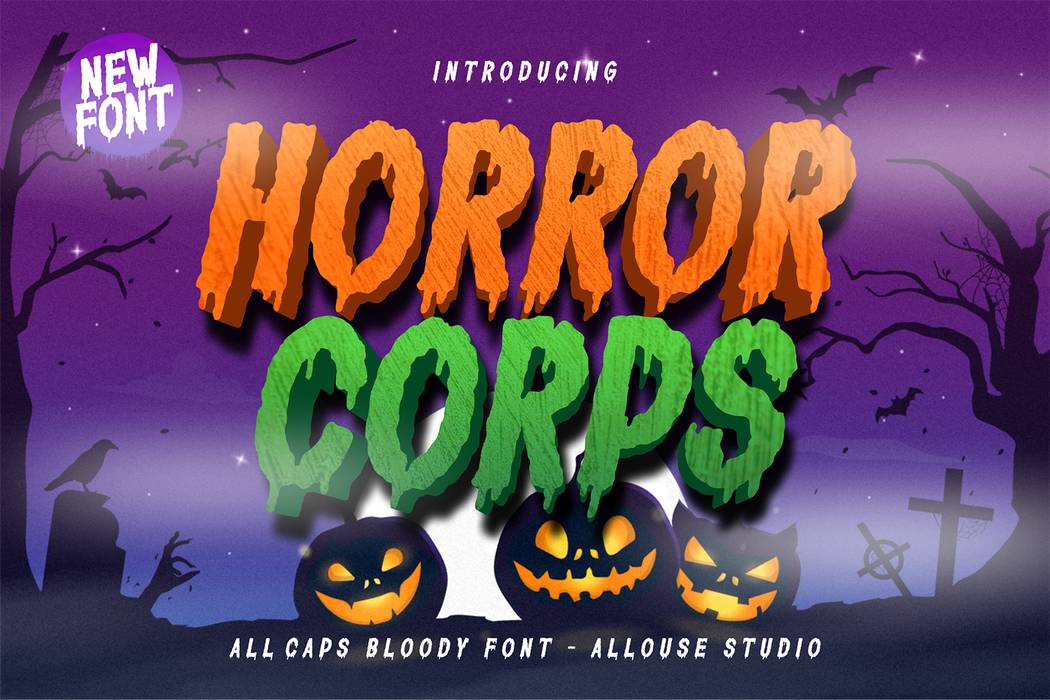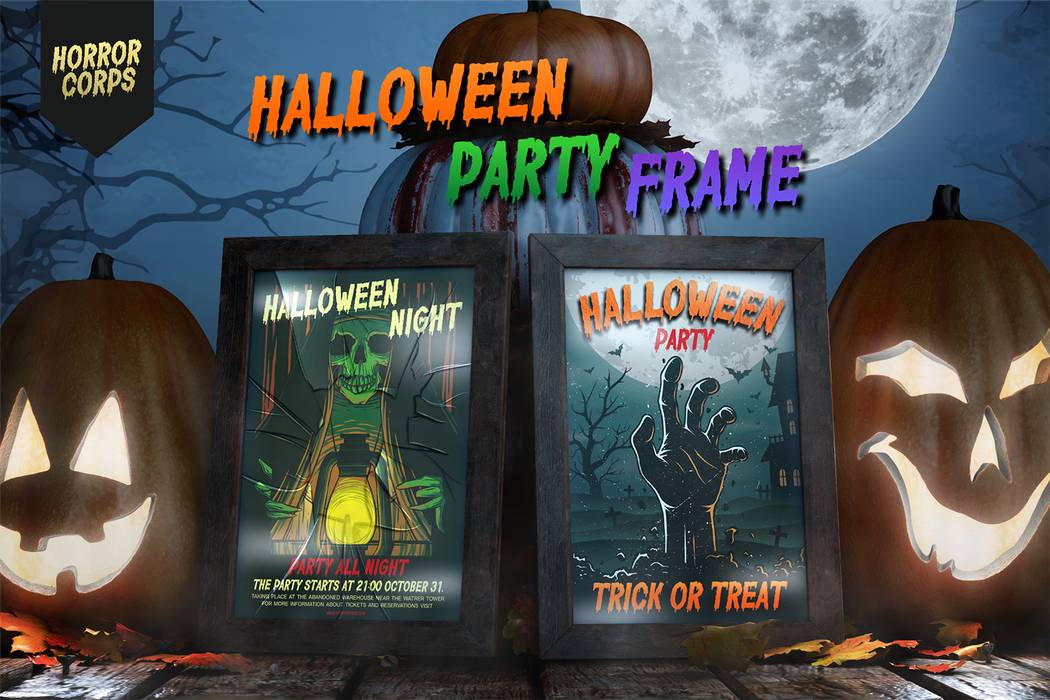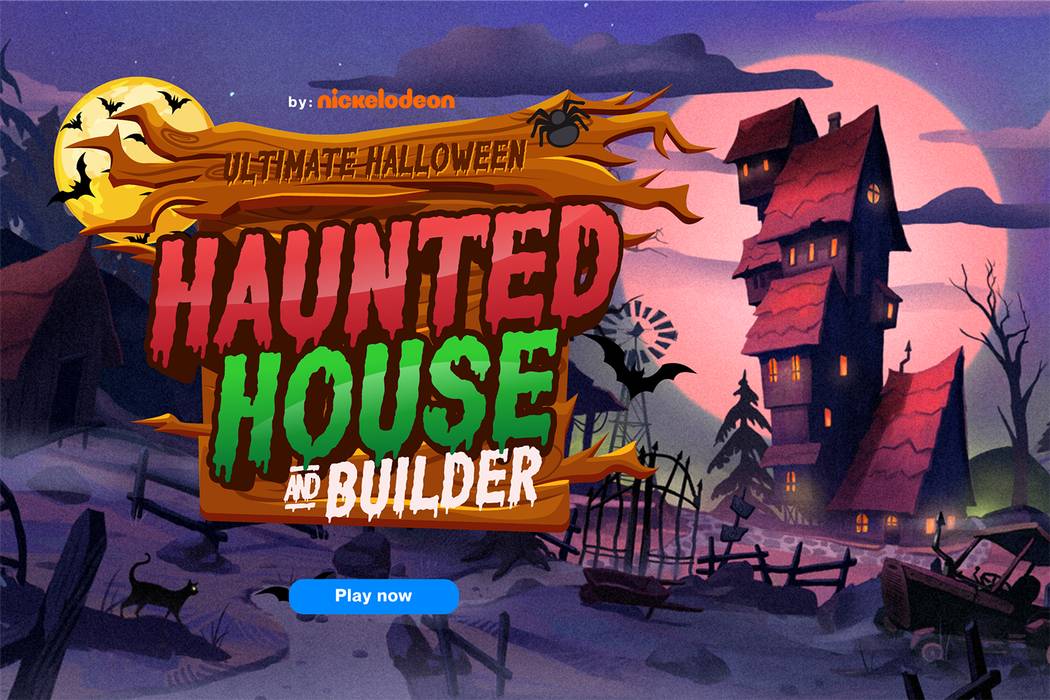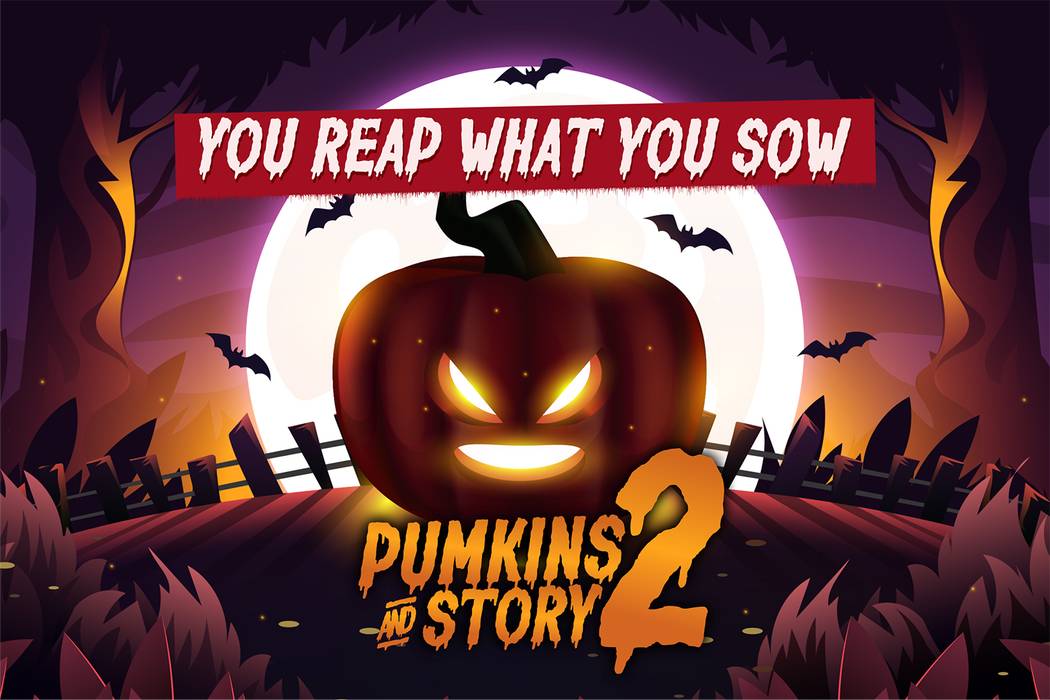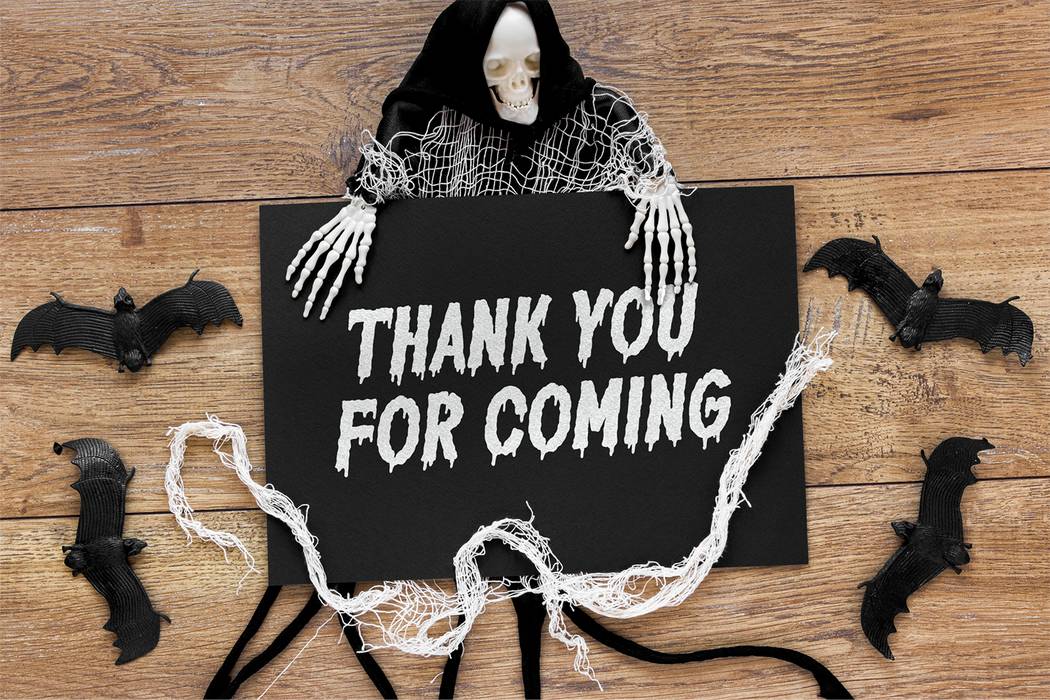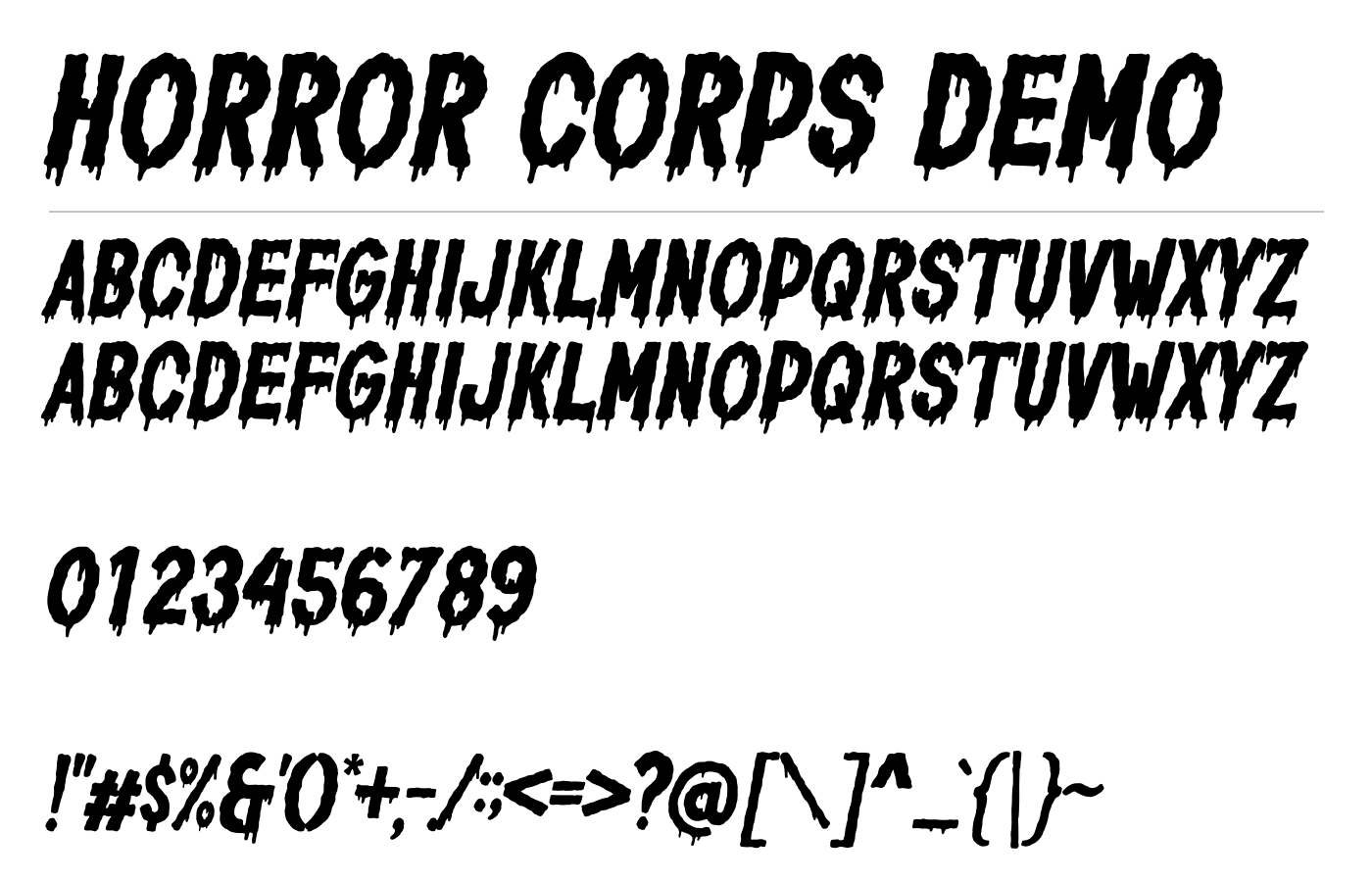
Horror Corps is a bold, condensed sans serif display font with a rough, dripping effect that evokes a spooky, eerie vibe perfect for horror themes. Its irregular, jagged edges and high contrast between thick and thin strokes create a dynamic, unsettling appearance, making it ideal for Halloween promotions, horror movie posters, and themed branding seeking a dramatic, chilling impact. This font’s distinctive style shines best in headlines and titles where it can grab attention and set a creepy mood.
Horror Corps Font